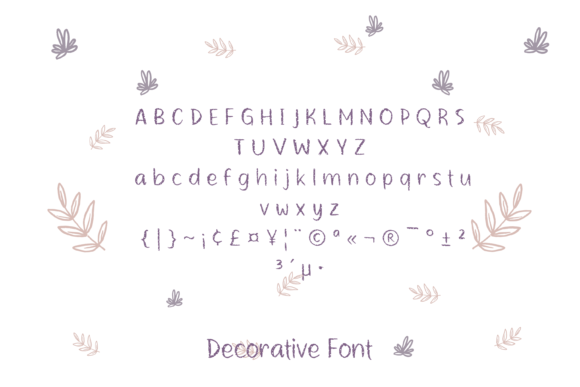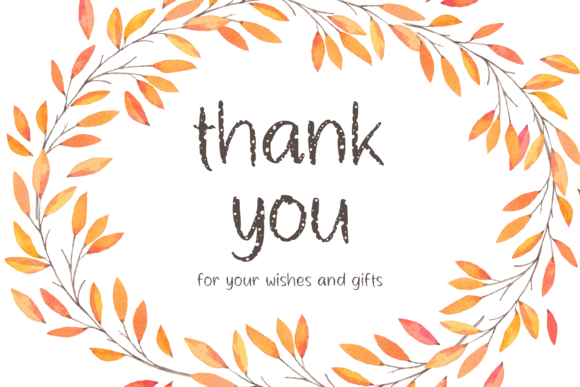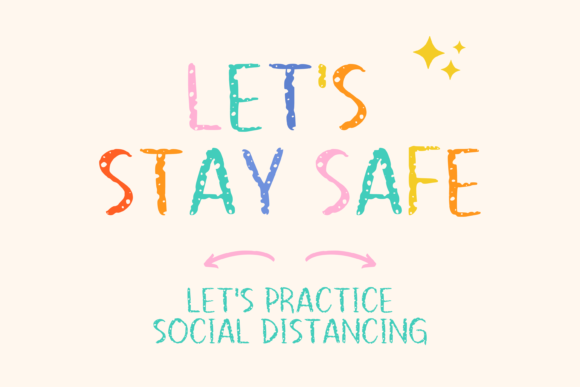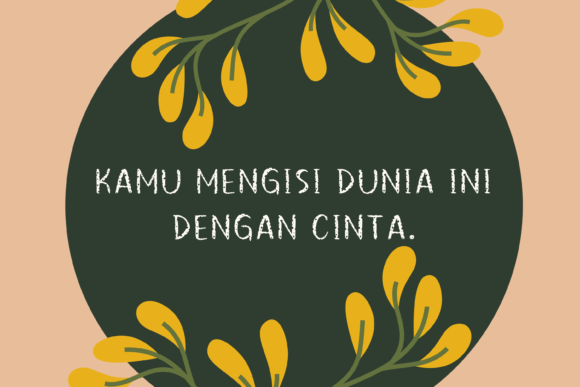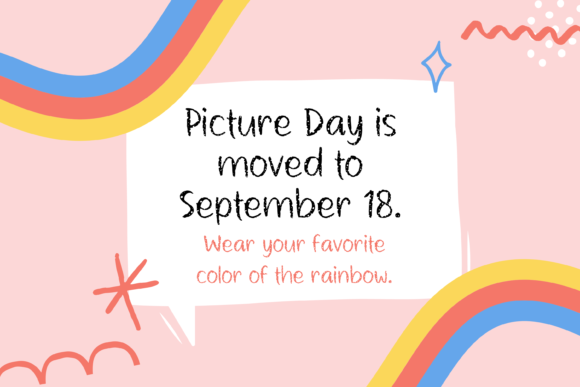
Introduction to Pollyt Font
Have you ever been working on a creative project, pouring your heart and soul into it, only to be stuck on finding the perfect font to bring it all together? That’s where Pollyt Font comes in – a sweet and friendly Display font that’s about to become your new go-to design resource.
With its natural and unique style, Pollyt Font is incredibly versatile, making it the perfect fit for a wide range of designs. Whether you’re working on a personal project or a client’s request, this high-quality font is sure to elevate your work and take it to the next level.
Key Features of Pollyt Font
- Unique characteristics include a modern and sleek aesthetic, making it perfect for contemporary design projects.
- Designed to be highly legible, ensuring that your text remains clear and easy to read even at smaller font sizes.
Honest Review: Pollyt Font
I recently had the chance to work with the Pollyt Font, and I must say it’s been a great addition to my design resources. One of the things that stands out about this font is its high quality. The lines are crisp, the typography is clean, and it’s perfect for any creative project that requires a touch of elegance.
One of the things that works well with the Pollyt Font is its versatility. It’s great for both digital and print projects, and it’s easy to use with a transparent background. This makes it perfect for creating engaging graphics, logos, and even UI elements. ✨
Here are some of the key features that make the Pollyt Font a great design resource:
- High-quality typography
- Perfect for digital and print projects
- Easy to use
Overall, I’m really impressed with the Pollyt Font. It’s a high-quality design resource that’s perfect for any creative project. I would definitely recommend it to designers who are looking for a reliable and versatile font.
Tips for Getting the Most Out of Pollyt Font
Use Pollyt Font with a transparent background to create stunning graphics and designs. Experiment with different font sizes, colors, and styles to add visual interest to your designs. You can also use Pollyt Font in combination with other design elements, such as images and shapes, to create unique and eye-catching designs.
Common Use Cases for Pollyt Font
Pollyt Font is ideal for a wide range of creative projects, including social media graphics, presentations, reports, and documents. You can also use the font for branding and marketing materials, such as business cards, brochures, and flyers.